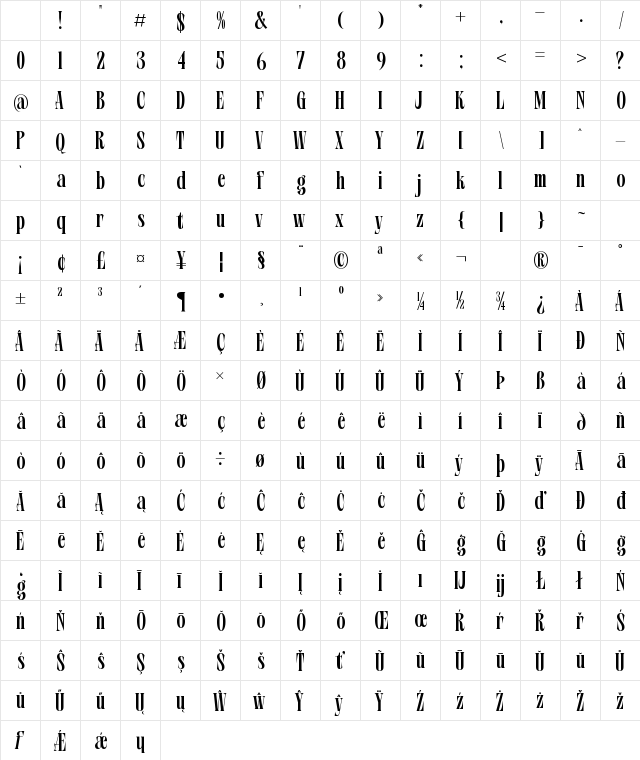
Wafterlic is a composed and adaptable typeface that performs quietly and consistently across a wide range of design contexts.
Pro Tip: Use Wafterlic in both headline and body roles to test its range before committing to a single application.